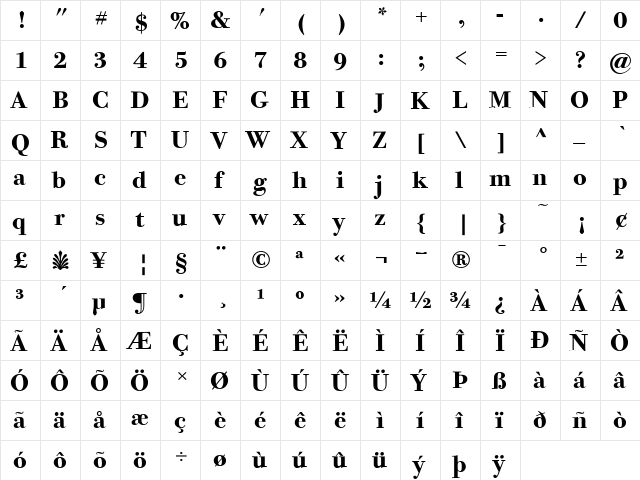
Bodoni Twelve ITC Regular
Design Context for Bodoni Twelve ITC Typeface
Bodoni Twelve ITC takes a measured approach to typography — its balanced proportions and neutral character make it a reliable workhorse for both digital and print work.
Pro Tip: Use Bodoni Twelve ITC in both headline and body roles to test its range before committing to a single application.